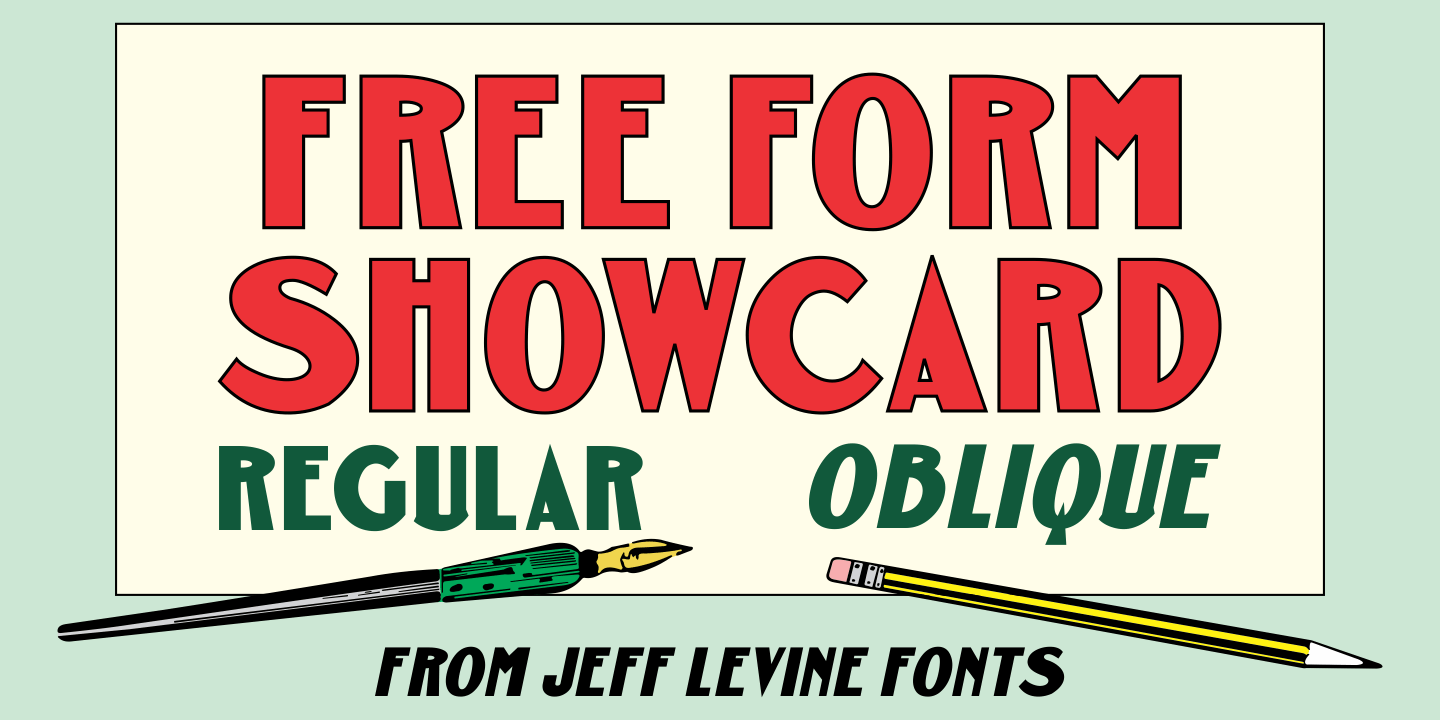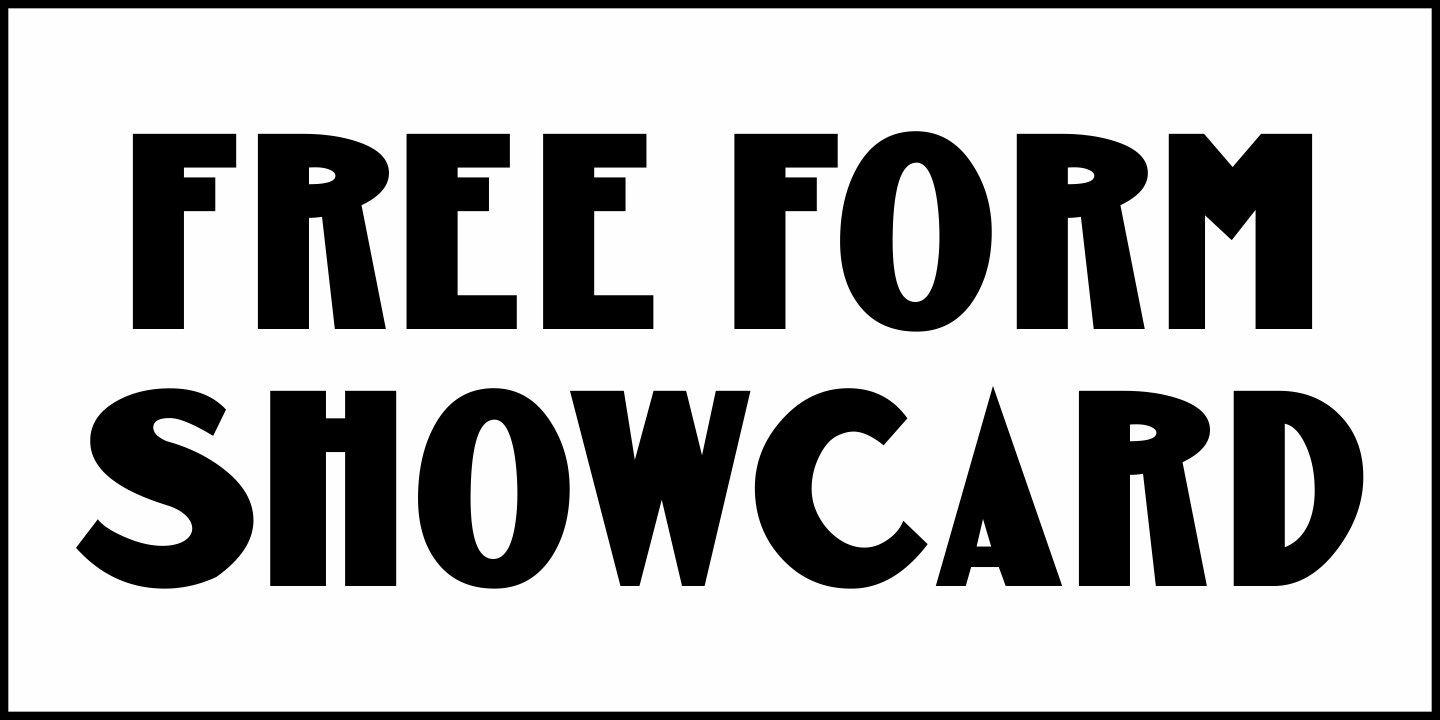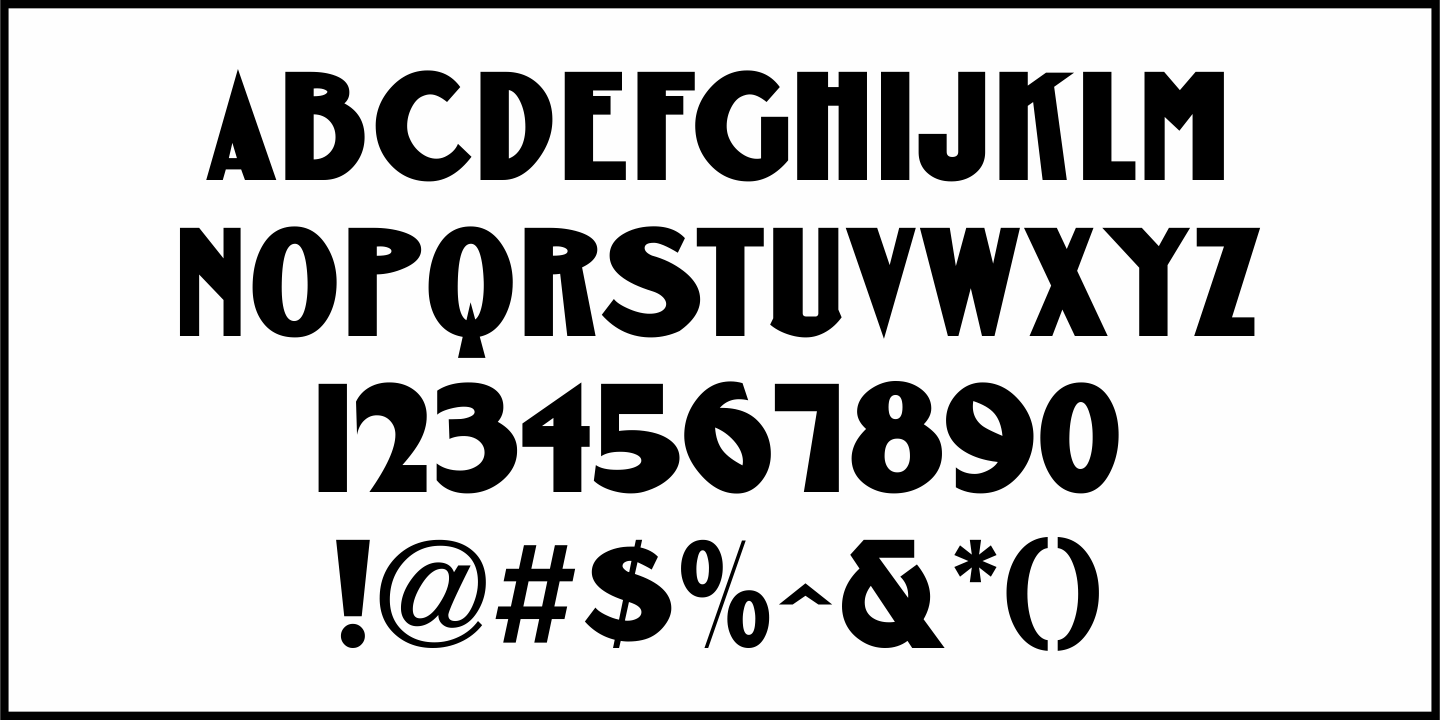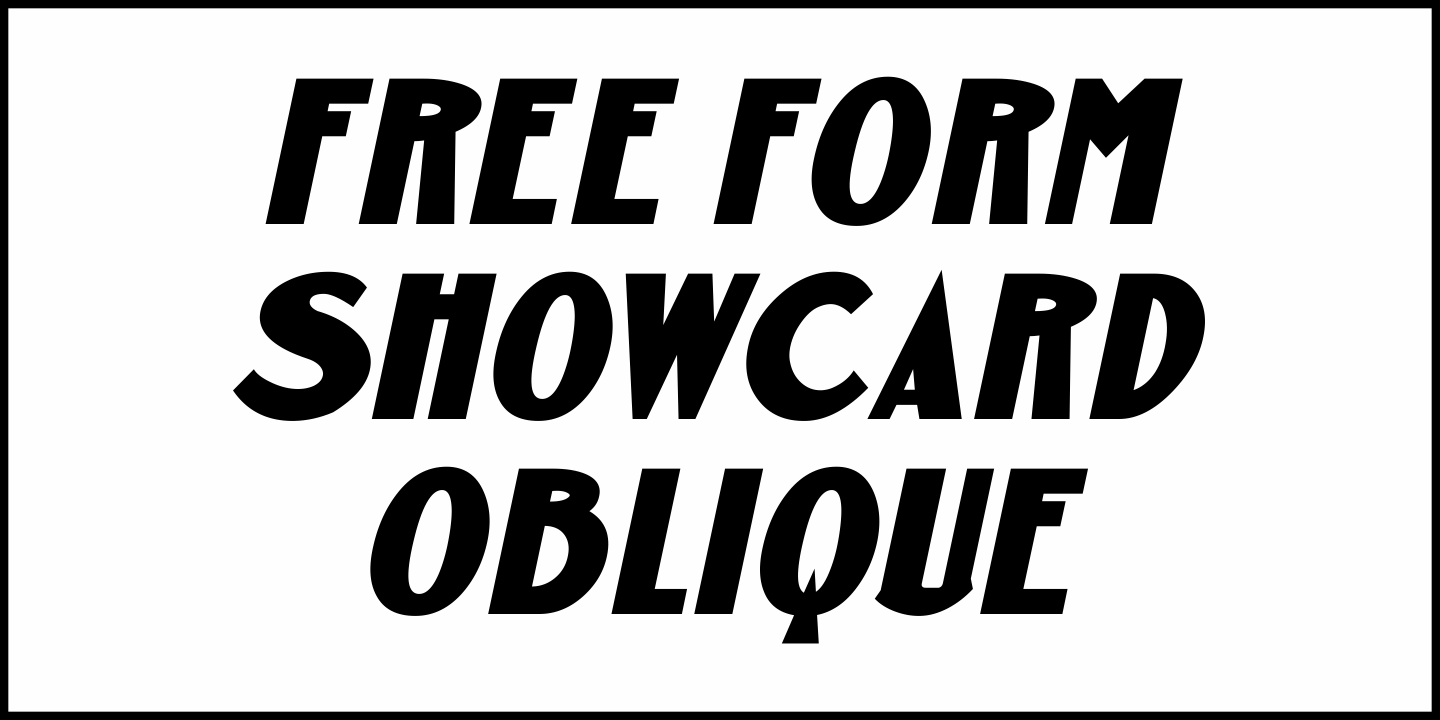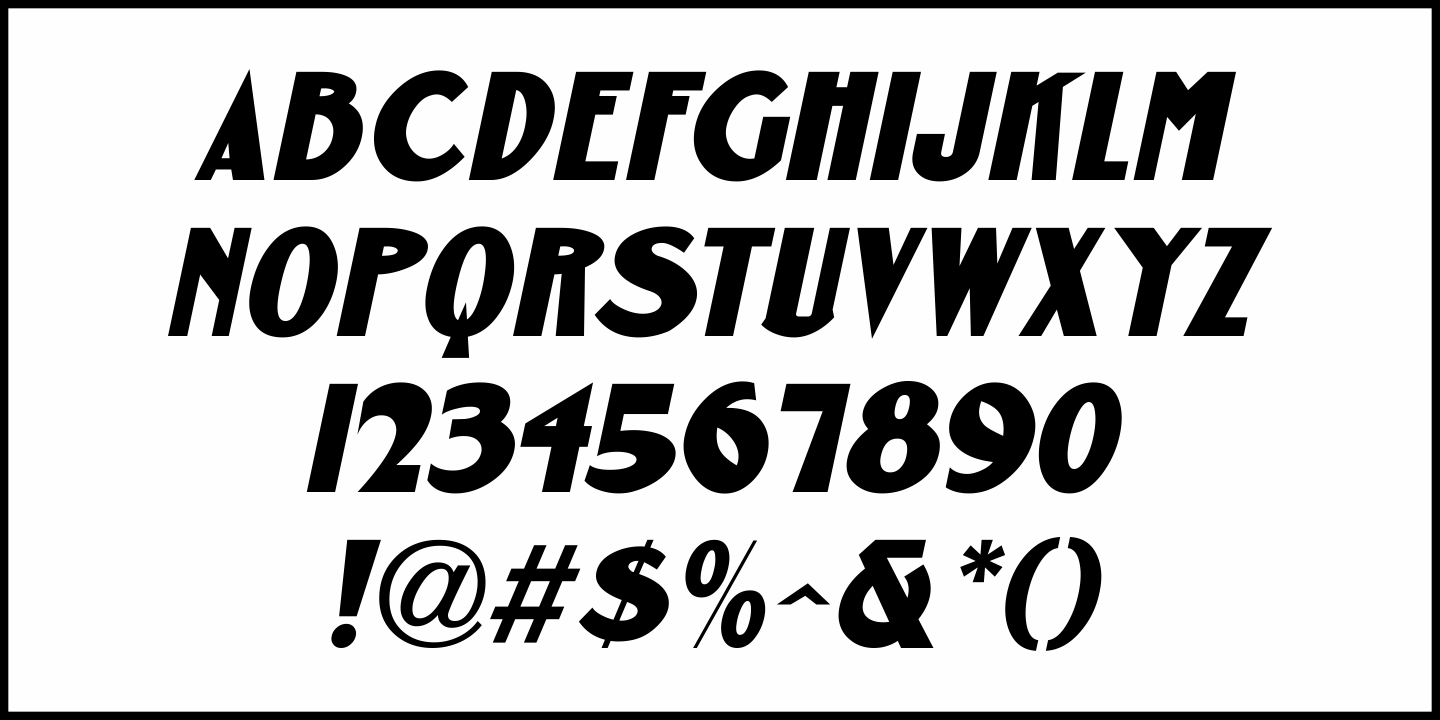
Free Form Showcard
One of the examples in the 1916 publication 'Baker's Showcard Book” [an early 20th Century instructional book on sign lettering] was simply called 'Plain Poster”.
Somewhat Art Nouveau in style, but with many 'nonconforming' character shapes and widths, this novelty design is available digitally as Free Form Showcard JNL in both regular and oblique versions.